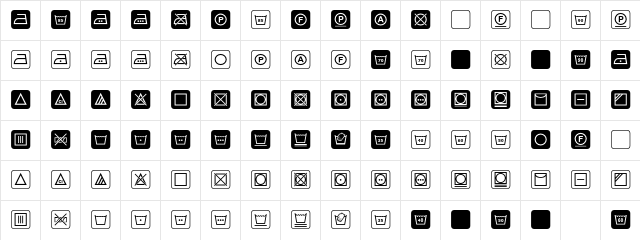
Notice Notice3
Design Context for Notice Typeface
Notice takes a measured approach to typography — its balanced proportions and neutral character make it a reliable workhorse for both digital and print work.